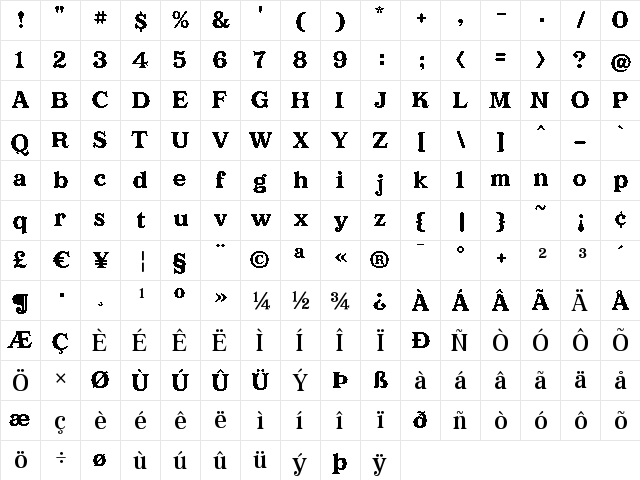
Everafter Regular
| Foundry | Silas Dilworth at Dilworth Typographics Inc. |
| Designer | Silas Dilworth |
Design Context for Everafter Typeface
Everafter is a composed and adaptable typeface that performs quietly and consistently across a wide range of design contexts.